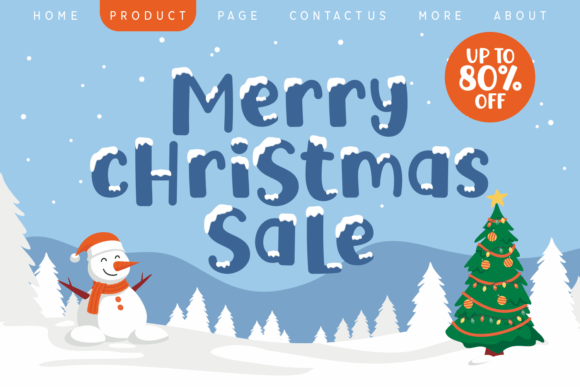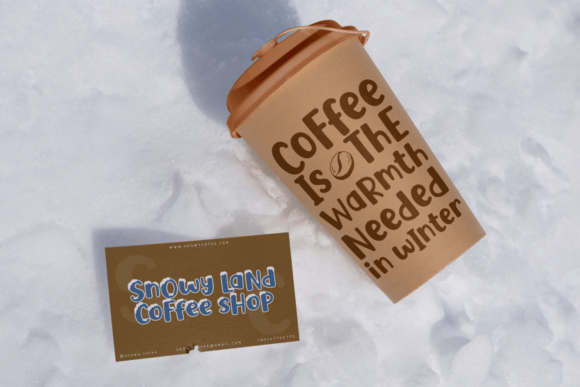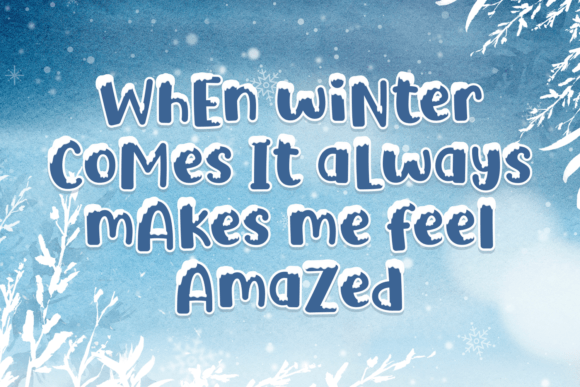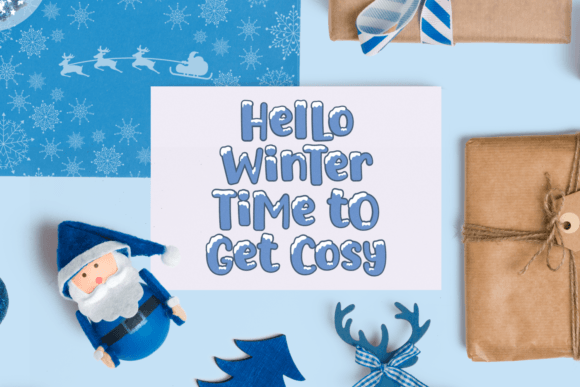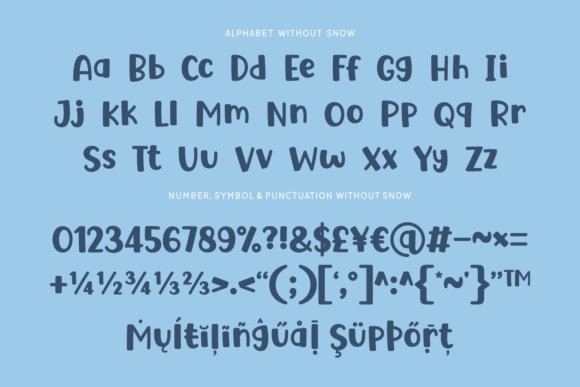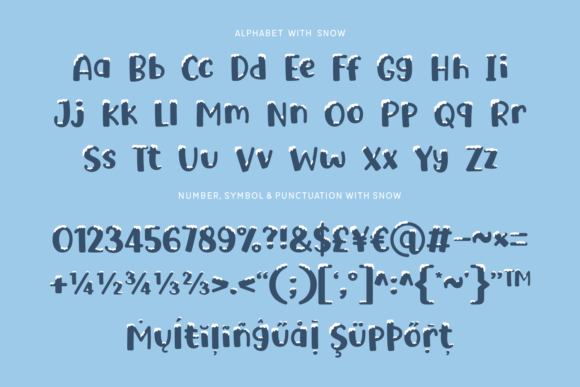
Winter Wonderland Typography: Unleash the Magic of Always Snowy Font
As the snowflakes gently fall outside your window, you can’t help but feel the urge to create something festive and cozy. You’ve spent hours browsing through design inspiration, and finally, you stumble upon the perfect winter-themed project. The only thing missing is the perfect font to match the magic of the season. That’s where Always Snowy Font comes in – a charming winter-themed decorative font that will elevate your winter typography designs to new heights.
With Always Snowy Font, you can create stunning designs for Christmas cards, invitations, posters, and even home decorations. The cute and snowy characters will transport your audience to a winter wonderland, making your designs truly unforgettable. As a designer, you know how much a great font can make or break a project. That’s why Always Snowy Font is a valuable addition to your design toolkit – it’s the perfect way to add a touch of winter magic to your creations.
Always Snowy Font Key Features
- Font Family: Always Snowy is a unique, hand-drawn font designed to evoke a sense of winter wonder.
- Character Count: Includes 200+ characters, including uppercase and lowercase letters, numbers, and special characters.
- Unique Characteristics: Features intricate, hand-drawn details and subtle texture elements, giving it a distinctive look.
Designer Review: Always Snowy Font
Overall, I think the Always Snowy Font is a unique and quirky addition to any design project. ✨ The font’s most notable feature is its use of a snowflake design, which can add a touch of whimsy to any text.
The font is well-suited for projects that require a playful and festive atmosphere, such as holiday cards or winter-themed websites.
- ✨ The snowflake design is visually striking and can add a lot of interest to text.
- ✨ The font is well-suited for projects that require a playful and festive atmosphere.
- ✨ The font is highly customizable, allowing designers to adjust the size, color, and spacing of the snowflakes to fit their needs.
- ⚠️ The font can be difficult to read at smaller sizes, as the snowflakes can become too dense and overwhelming.
- ⚠️ The font may not be suitable for projects that require a more serious or professional tone.
- ⚠️ The font can be prone to aliasing at certain resolutions, which can affect its overall appearance.
The Always Snowy Font is a fun and playful addition to any design project. While it may have some limitations, it can be a great choice for projects that require a festive and whimsical atmosphere.
The Always Snowy Font is perfect for:
- Winter-themed designs (e.g., holiday cards, winter posters)
- Children’s books and educational materials
- Wedding invitations and other special occasion designs
Here are some tips to help you get the most out of the Always Snowy Font:
- Use it in conjunction with other winter-themed elements (e.g., snowflakes, pinecon